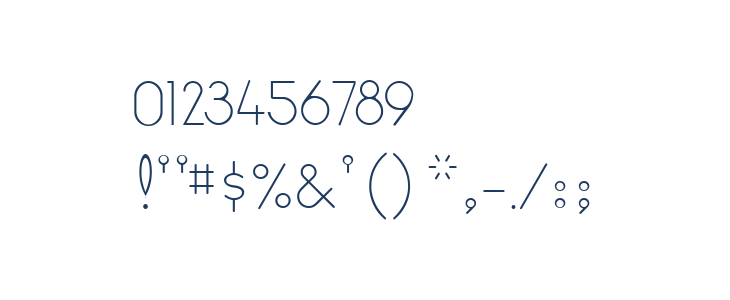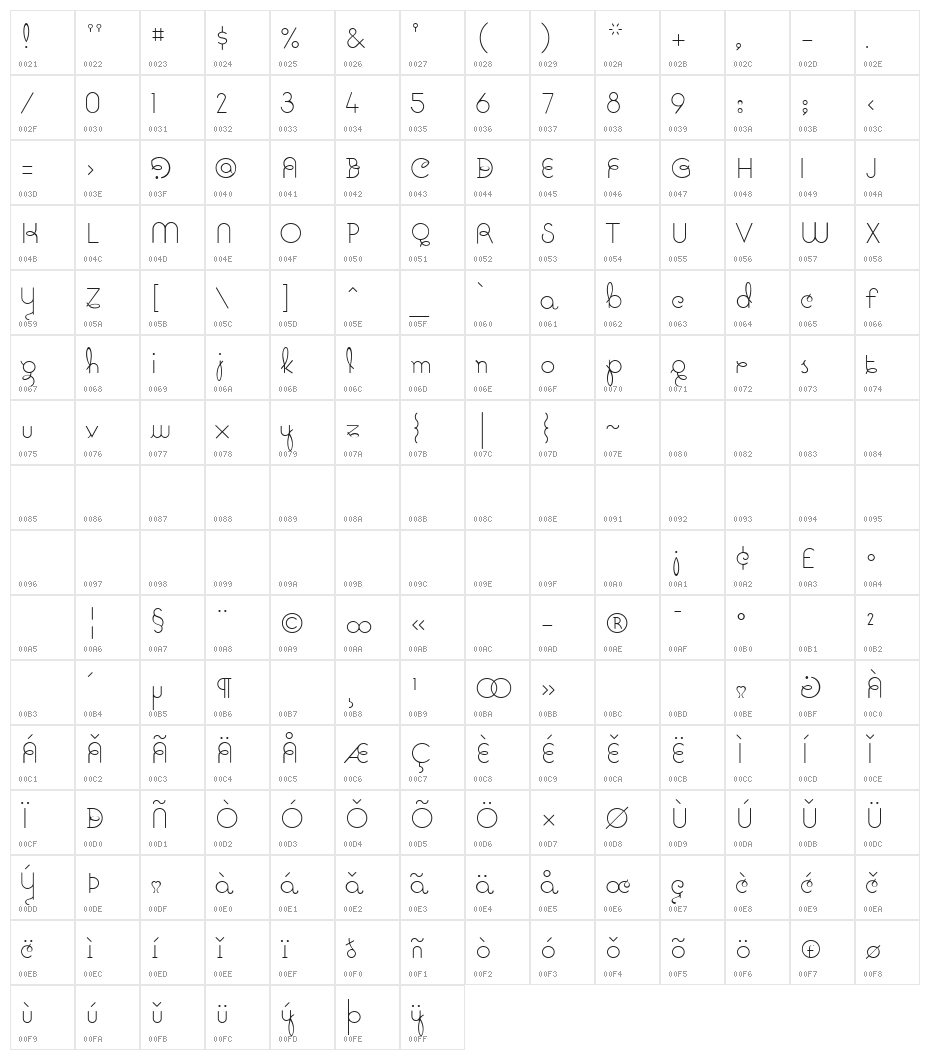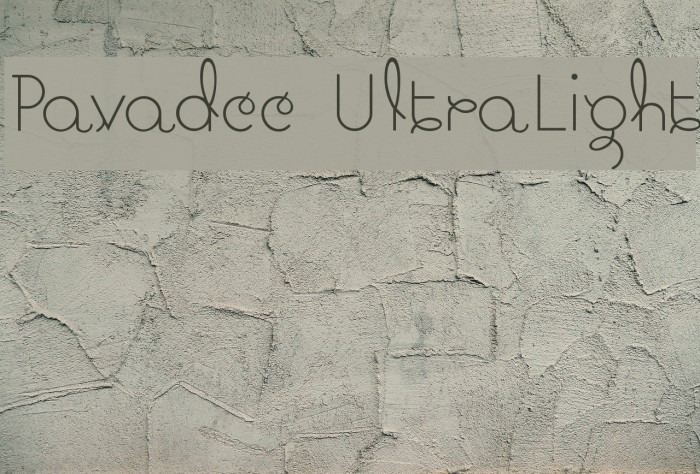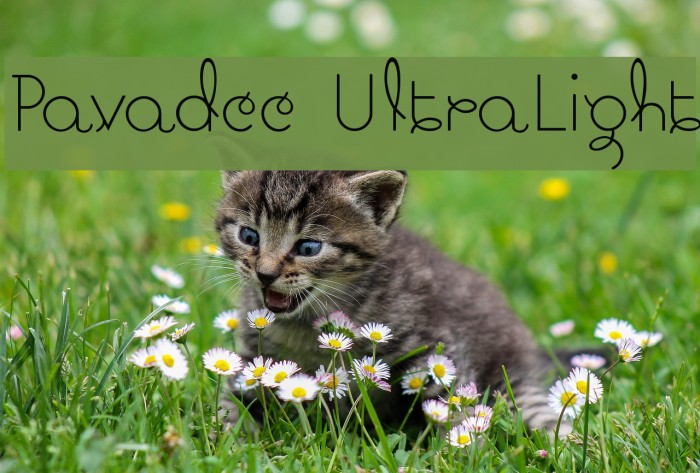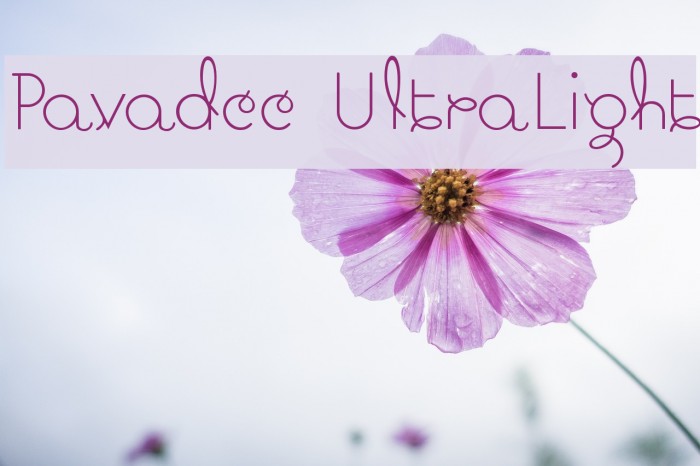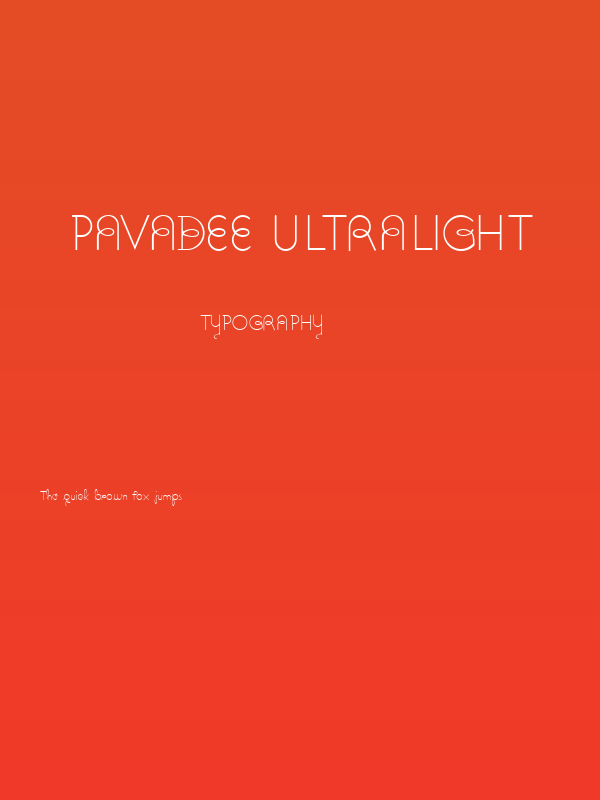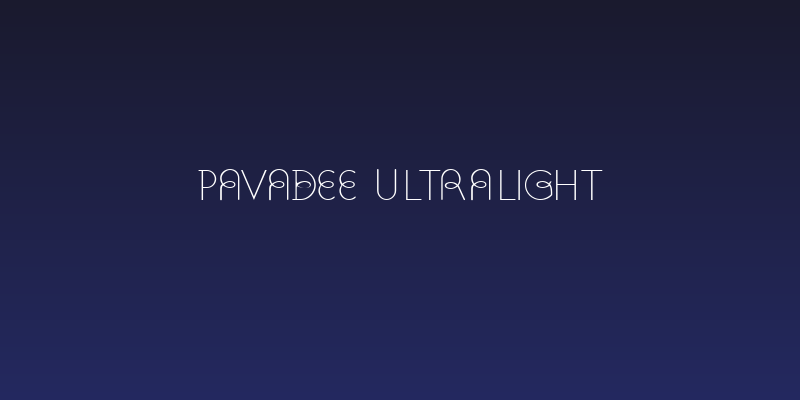
Pavadee UltraLight Font
Pavadee UltraLight Description
This font features a unique and artistic design with a modern twist. The characters are composed of thin, elegant lines that create a sense of lightness and sophistication. The uppercase letters have a distinct geometric flair, with rounded edges and a playful, yet structured form. The lowercase letters maintain a consistent style, with some characters featuring subtle loops and curves that add to the font's charm. Numbers are clear and easy to read, while special characters are designed to complement the overall aesthetic. This font is perfect for projects that require a touch of creativity and elegance.